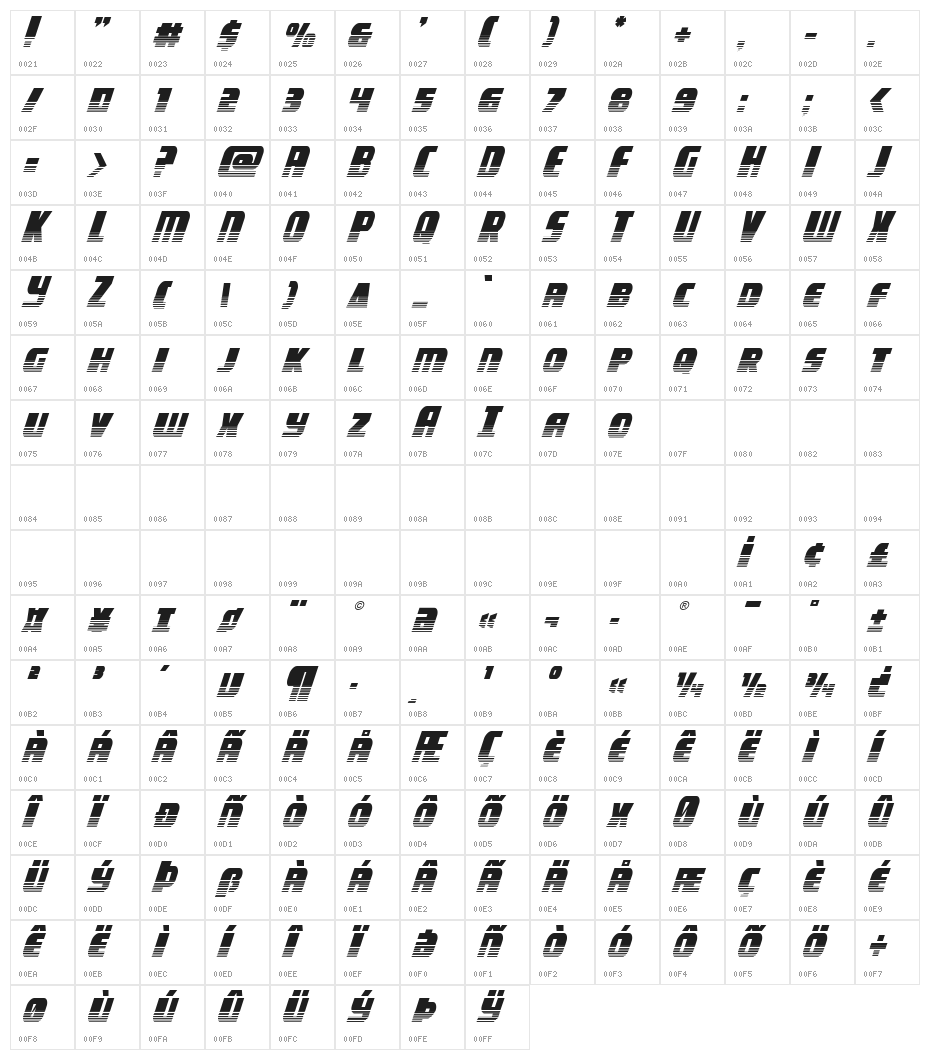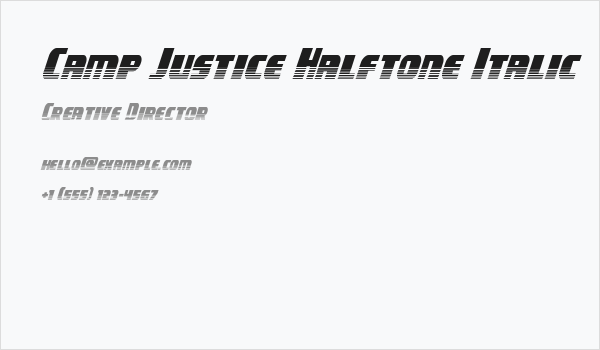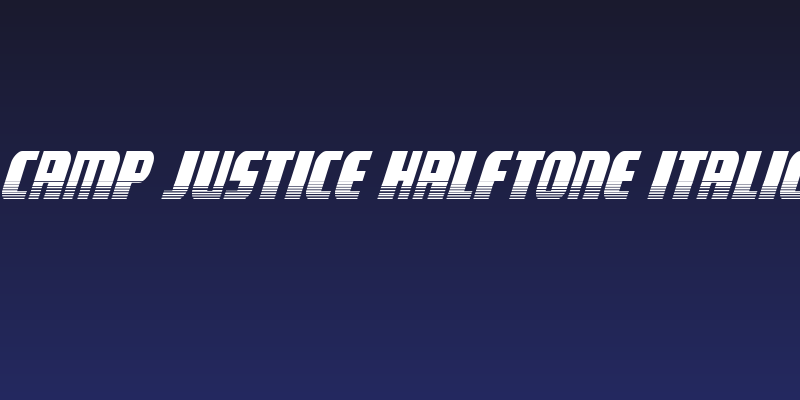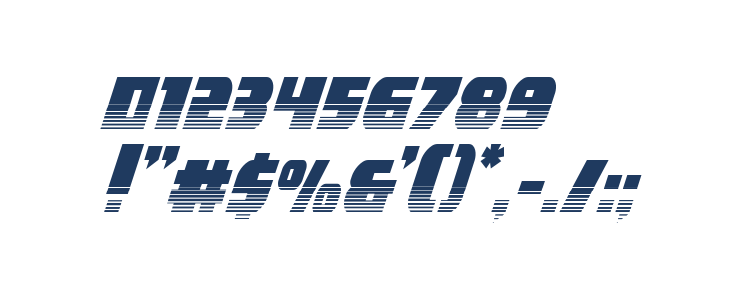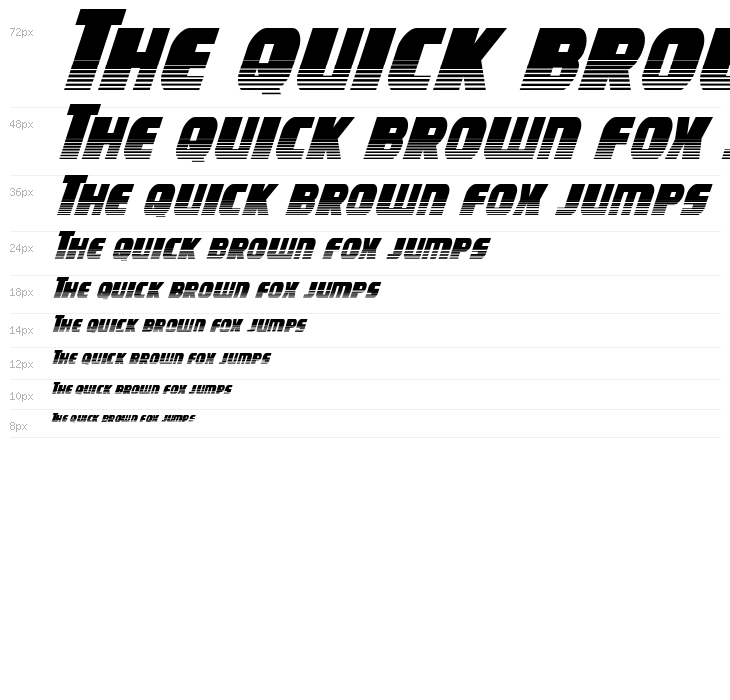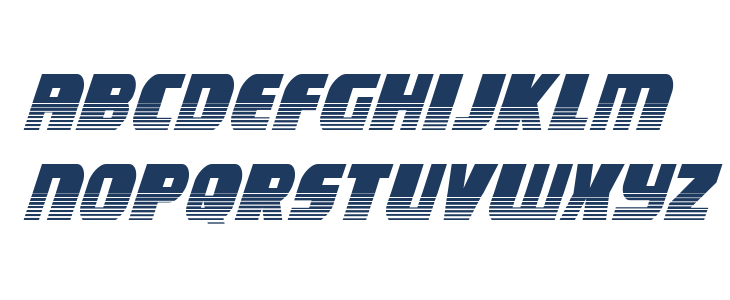
Camp Justice Halftone Italic Font
Camp Justice Halftone Italic Description
This font features a bold, italicized style with a distinctive halftone effect that gives it a dynamic and modern appearance. The characters are designed with a strong, angular structure, and the halftone pattern creates a sense of movement and depth. The uppercase and lowercase letters maintain a consistent style, with the halftone lines adding a unique texture to each character. The numbers and special characters follow the same design principles, ensuring a cohesive look across all elements. This font is ideal for projects that require a bold and eye-catching typeface with a contemporary edge.